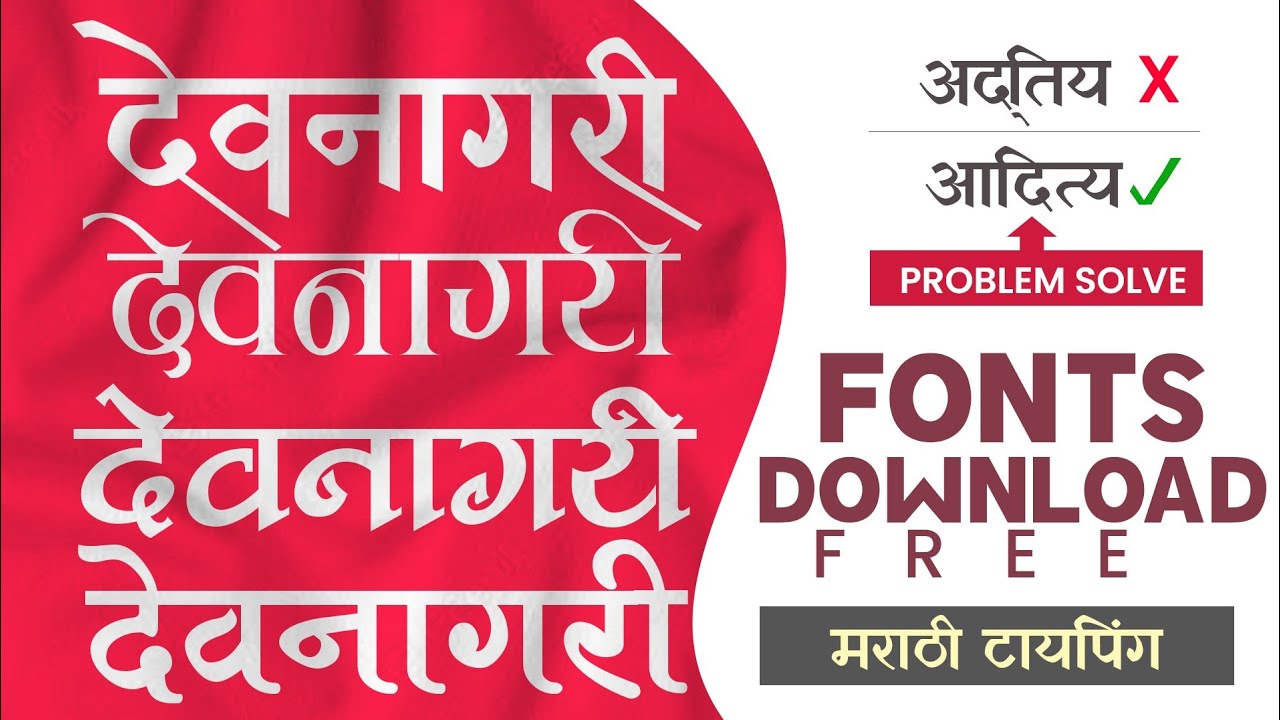
Devanagari All Font Download beautiful hindi fonts for your projects. perfect for wedding cards, posters, and cultural designs. free devanagari typography collection. Devanagari is the most common font in hindi. you can check font looks without download also by clicking on "try & download", where you can check customized text with various font sizes.
Devanagari Calligraphy Fonts Free Download Start exploring our collection today and elevate your designs with beautiful, professional grade hindi fonts. all our fonts are free to download and include essential character sets for effective devanagari typography. The hindi font balances traditional and modern forms of conjuncts. for the open font license release, tiro devanagari hindi has been extended to support additional characters, and. You can download top hindi fonts (devanagari fonts, nepali fonts, sanskrit fonts and marathi font). from devlys to kruti, we offer a wide range of hindi fonts. our users prefer our fonts for their books, magazines and websites. With more than 283 free devanagari (hindi, nepali, marathi, sanskrit ) fonts, you can download almost any devanagari font you want. you are in the right place for hindi fonts free download, and download of any other devanagari fonts.